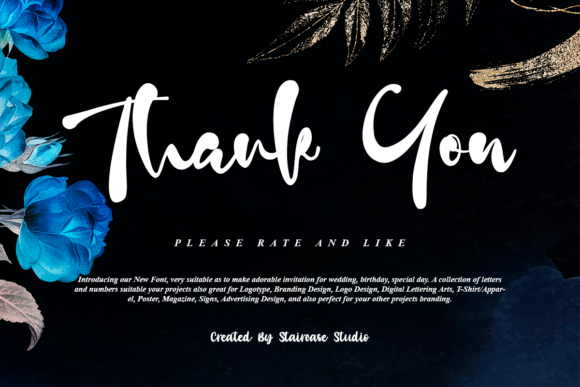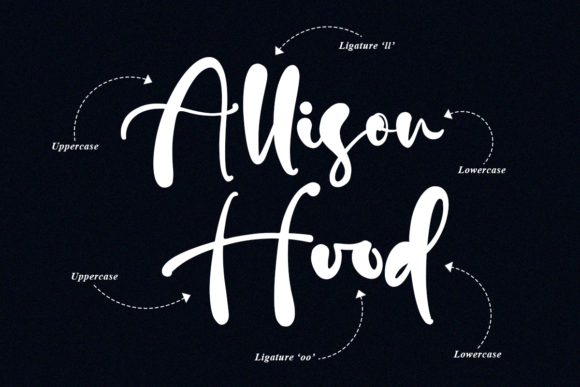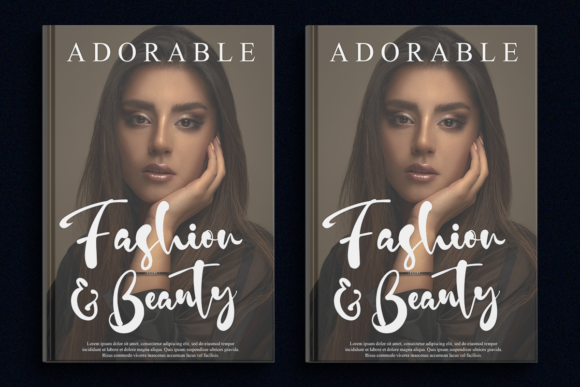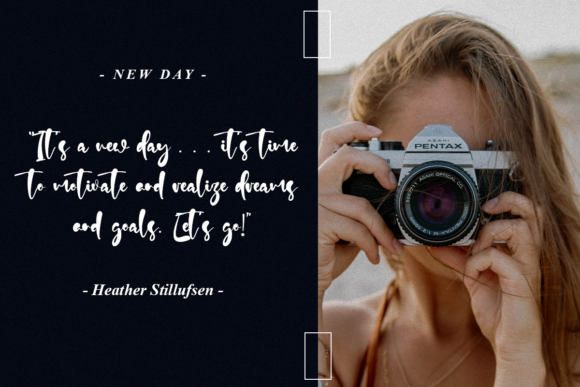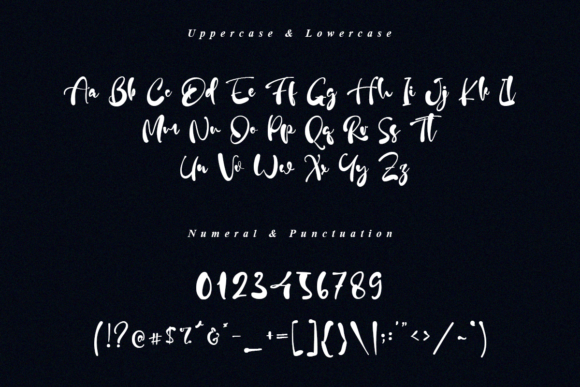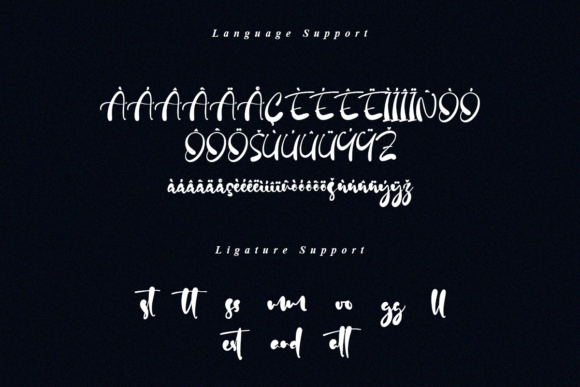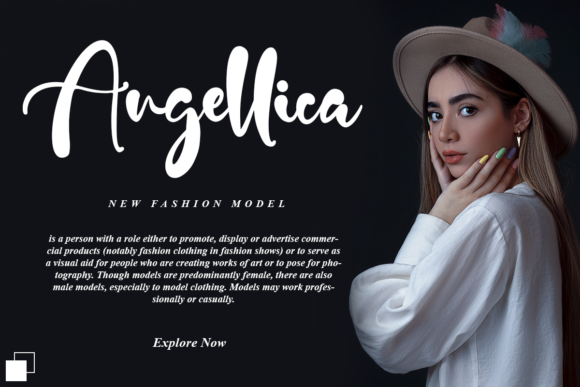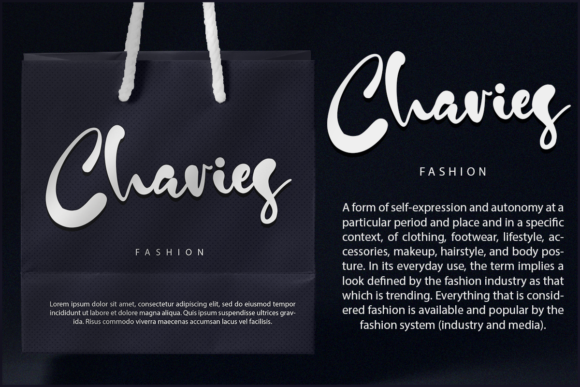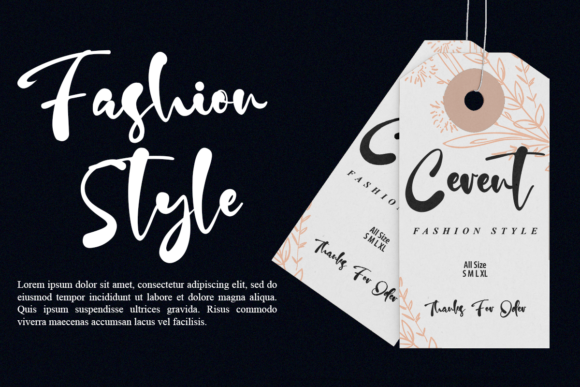
Enjoy Days Font
About Enjoy Days Font
Enjoy Days is a beautiful and refined script font. It has a classy, elegant and modern look that can be used for logos, branding, invitations, stationery, wedding designs, social media posts, and much more!